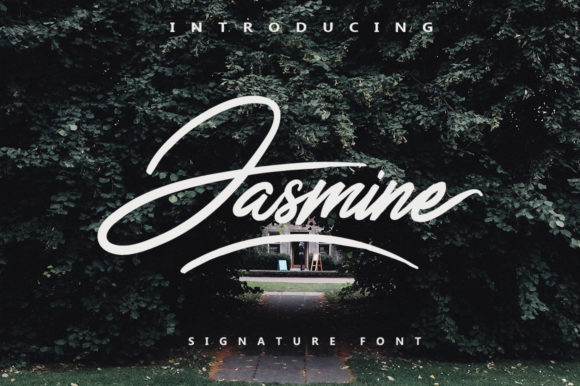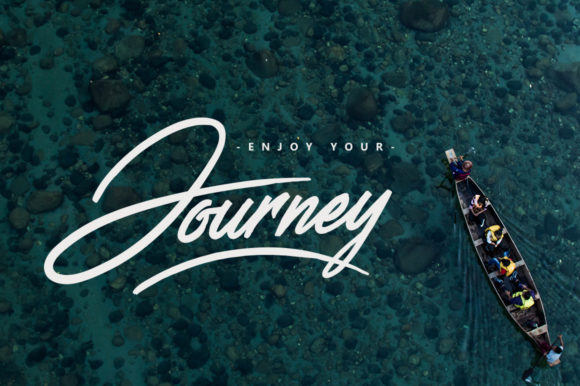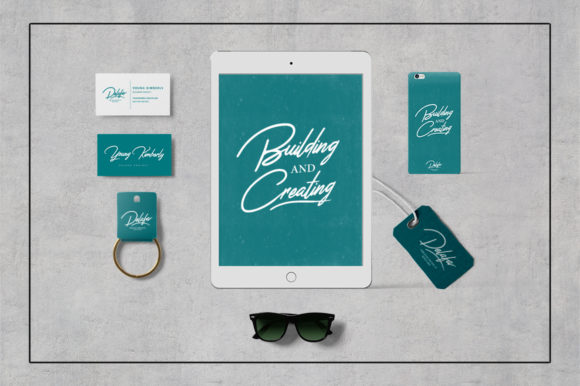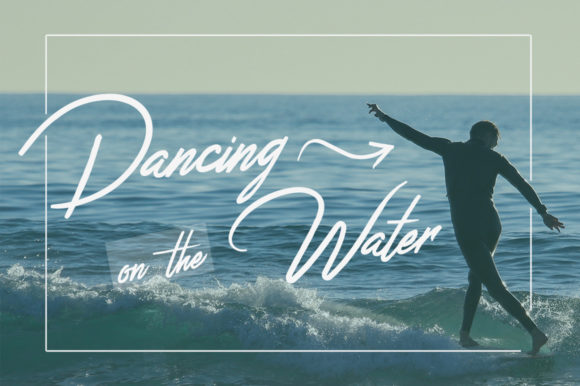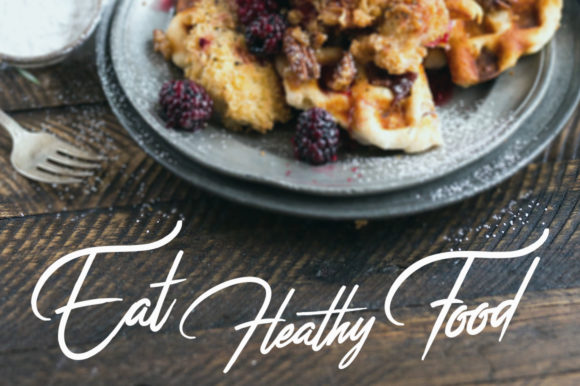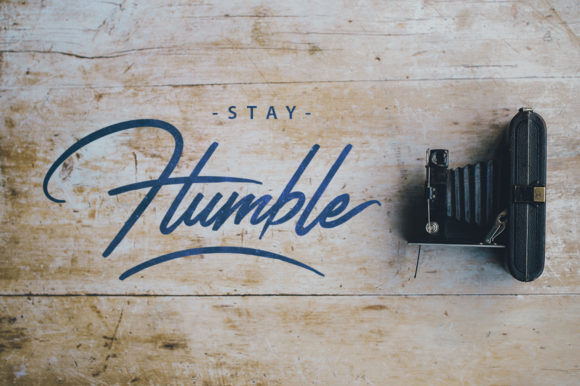
HomeScript FontsJasmine Font Script Fonts Jasmine Font FacebookXPinterestWhatsApp Jasmine Font Poster 2 Jasmine Font Poster 3 Jasmine Font Poster 4 Jasmine Font Poster 5 Jasmine Font Poster 6 About Jasmine Font Jasmine is a stylish and carefully handcrafted script with an incredibly modern and elegant style. DOWNLOAD NOW People also explored Playtoon Font Millestone Font Cozy Winter Duo Font Estonia Font Dragon Scribble Font Philomena Font Whitebook Font Romantica Font Elvis 281 0 TagsJasmine Font Previous articleBelynda FontNext articleHerogenie Font LEAVE A REPLY Cancel reply Comment: Please enter your comment! Name:* Please enter your name here Email:* You have entered an incorrect email address! Please enter your email address here Website: Save my name, email, and website in this browser for the next time I comment. Personal Use Free Allea Sweet Personal Use Free Read more about this font Adlanta Personal Use Free Read more about this font Happy Camping Personal Use Free Read more about this font Hello Sarrah Personal Use Free Read more about this font BLOG Top 10 Handwritten Fonts That Elevate Your Designs Top 10 Handwritten Fonts That Will Elevate Your Designs Handwritten fonts bring a warm, personal touch to every creative project. Whether you're designing logos, invitations,... How to Cut Any Font on Cricut: Convert a Font to SVG (Free) Modern Sans-Serif Fonts That Brands Love in 2025 Fonts That Capture the Spirit of New York City